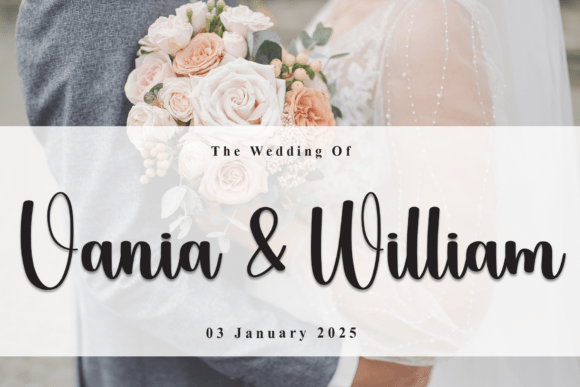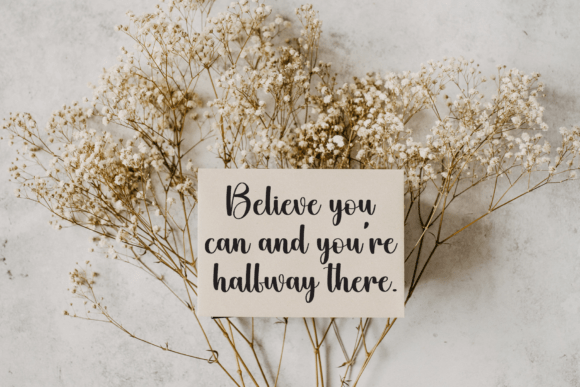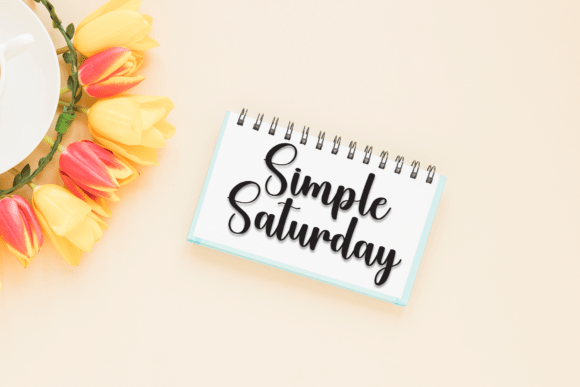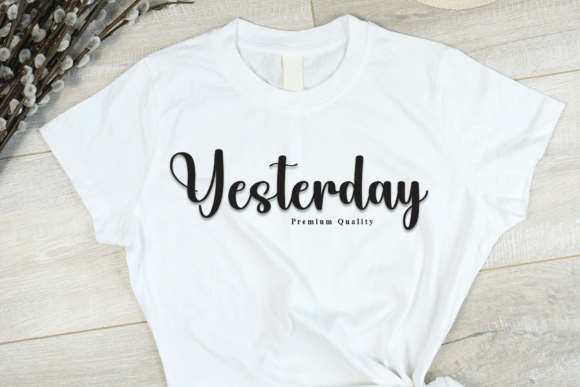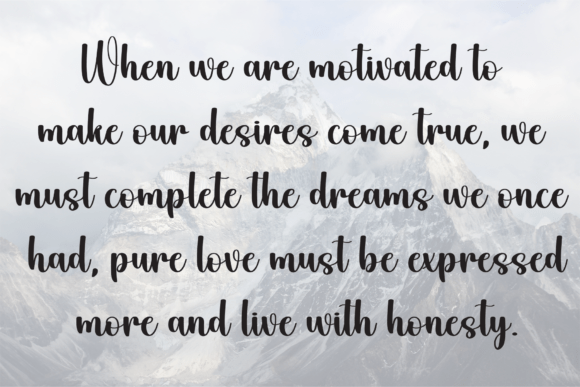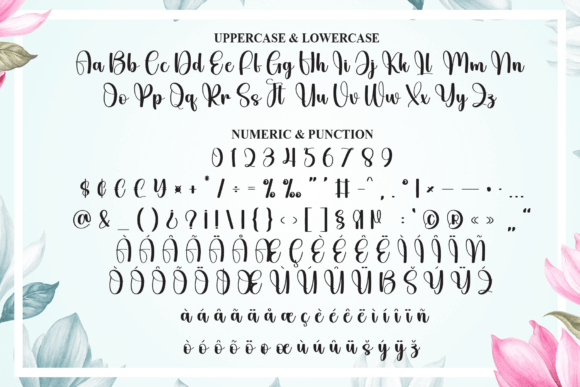
Introduction to Lasting Font
Have you ever been captivated by a handwritten note from a loved one, its imperfections and flourishes telling a story of its own? That’s the magic of the Lasting Font, a beautiful and elegant script font that radiates warmth and affection. As a designer, there’s something special about working with a high-quality font that not only elevates your creative project but also conveys the emotions and personality behind it.
Whether you’re designing a wedding invitation, a branding campaign, or a heartfelt message, the Lasting Font is an invaluable resource that adds a personal touch to your work. Its flowing strokes and elegant curves make it perfect for any project where you want to convey a sense of intimacy and charm. With its transparent background and free download option, this design resource is accessible to designers of all levels, making it a valuable addition to any design toolkit.
Lasting Font
- Designed with a focus on readability and aesthetics, making it an ideal choice for a variety of creative projects, from logos to typography.
Honest Review: Lasting Font
I recently stumbled upon Lasting Font, and I must say it’s been a game-changer for my creative projects. The font is a high-quality design resource that’s perfect for anyone looking to add a professional touch to their work.
- ✨ High-quality design: Lasting Font is well-crafted and visually appealing, making it an excellent addition to any project.
- ⚠️ Limited character set: While the font is well-designed, the character set is a bit limited, which may not be ideal for projects that require a wide range of characters.
- ⚠️ Not suitable for all devices: I’ve noticed that the font can look a bit pixelated on lower-resolution devices, which may be a concern for designers who need to ensure their work looks good on a variety of devices.
Overall, I’m thoroughly impressed with Lasting Font. While it’s not perfect, its strengths far outweigh its weaknesses. If you’re looking for a high-quality, free design resource, I highly recommend giving it a try.
Lasting Font
Lasting Font is a high-quality design resource ideal for creative projects. It features a transparent background, making it easy to use in various design applications.
Tips for Getting the Most Out of Lasting Font
To get the most out of Lasting Font, use it in combination with other design elements, such as graphics and images. Experiment with different font sizes, colors, and arrangements to create unique designs.
Lasting Font is suitable for various creative projects, including:
– Social media graphics and posts
– Infographics and data visualizations
– Logos and branding materials
– Presentations and reports